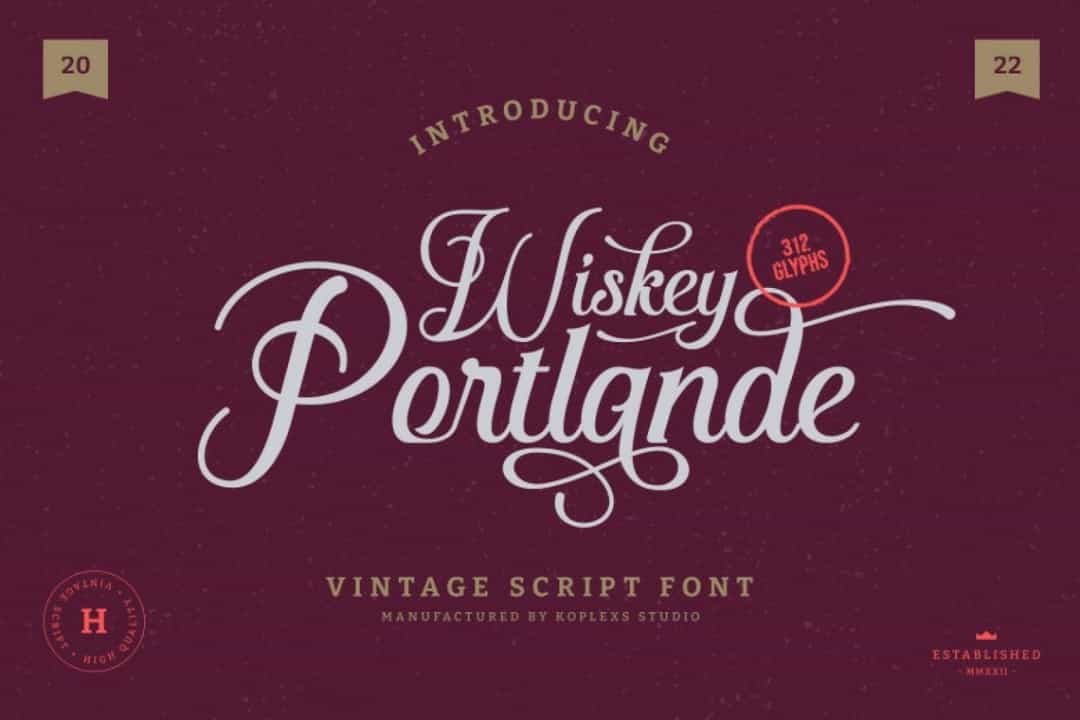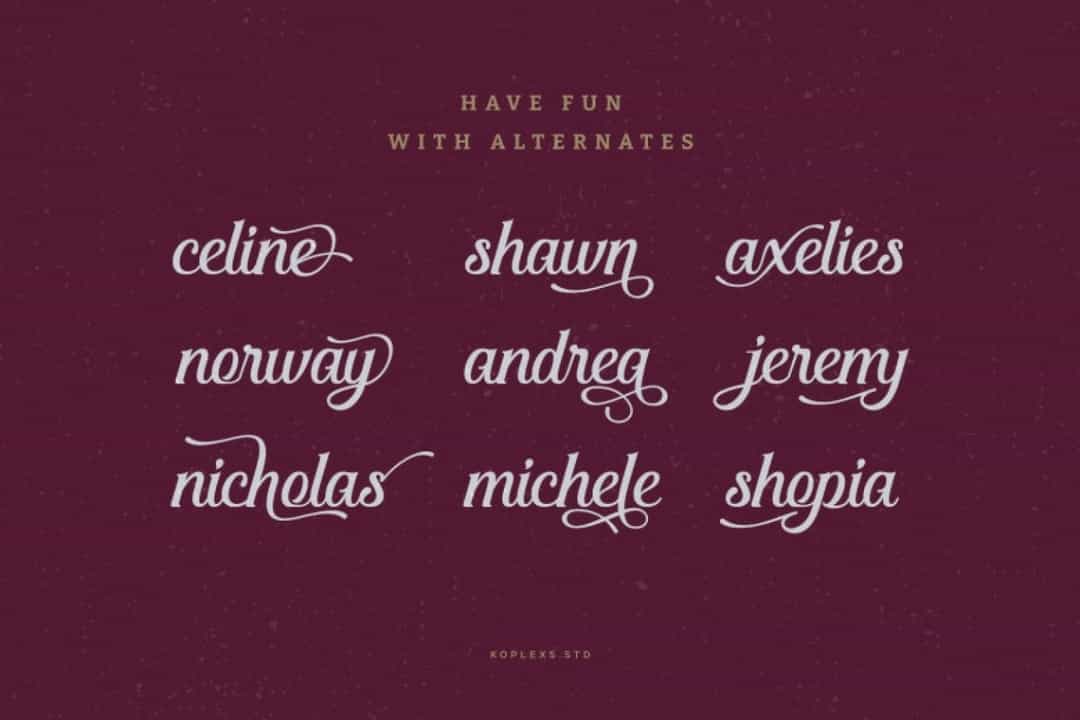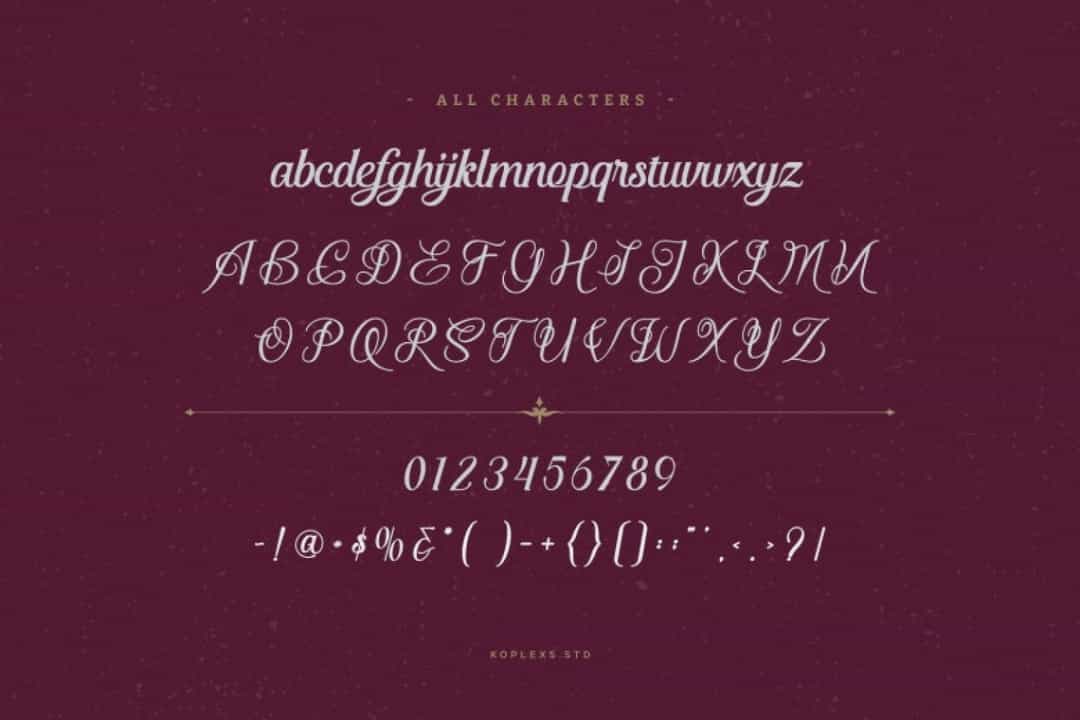
Wiskey Portlande, a vintage script typeface designed in the 1980s with handwritten letterforms inspired by traditional calligraphy, is easy and powerful. I created several variations of it that make it even better as a selection of display fonts that can enhance any layout – appearing professional while having an elegant style.